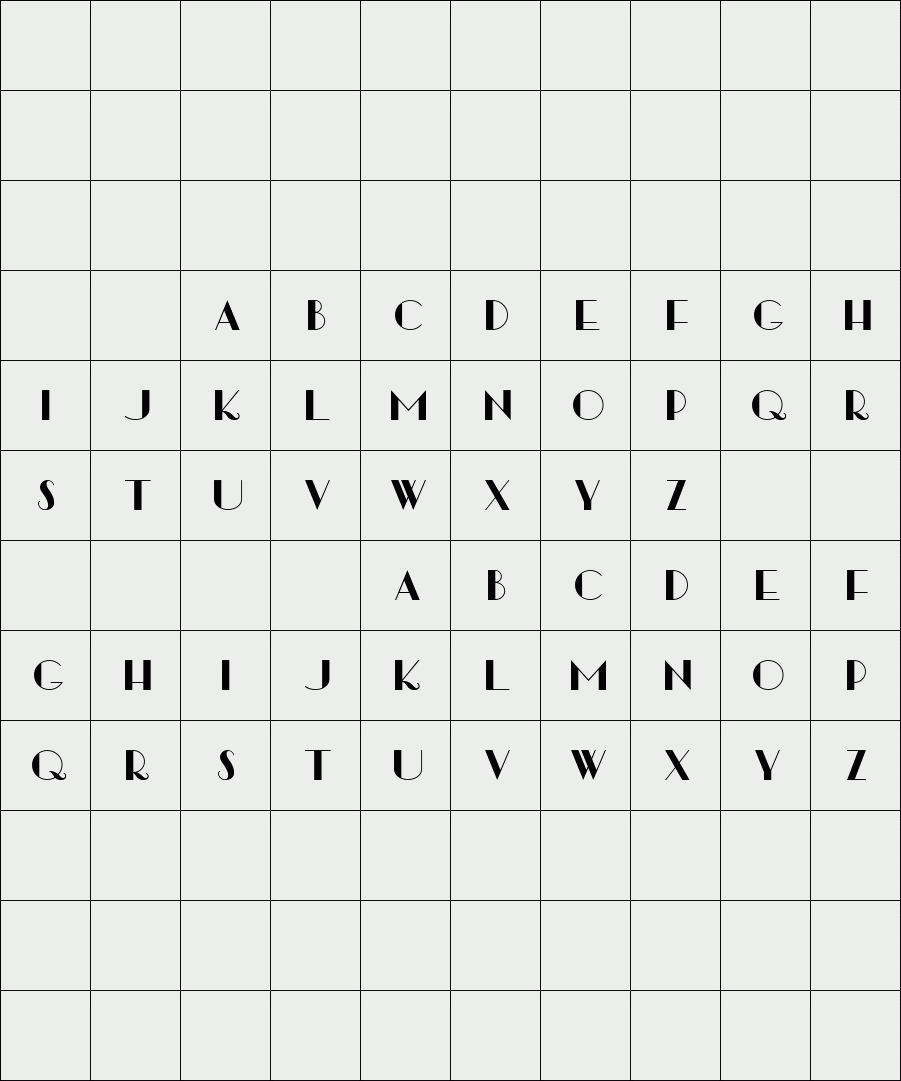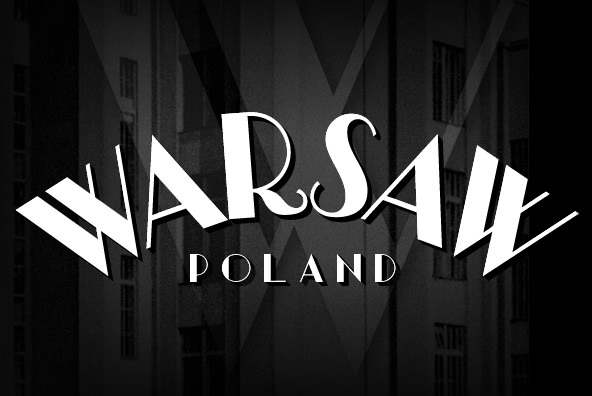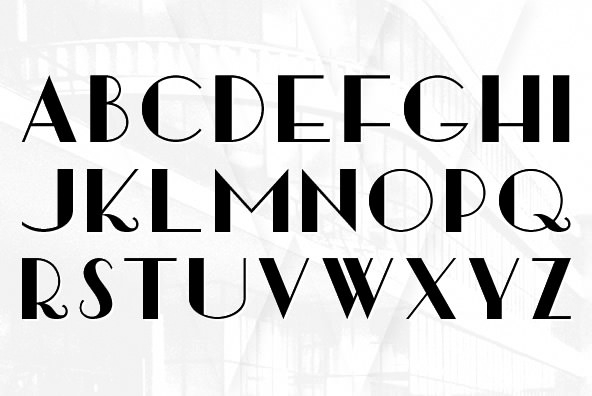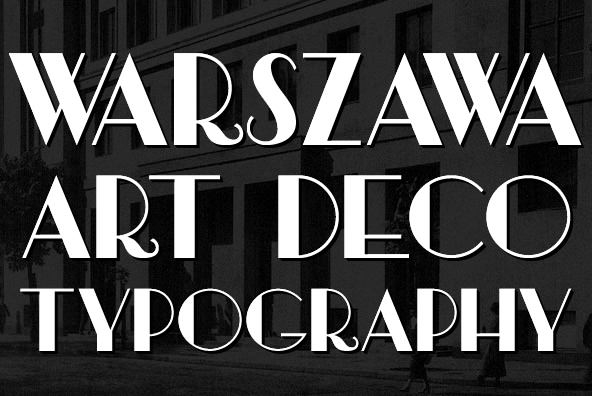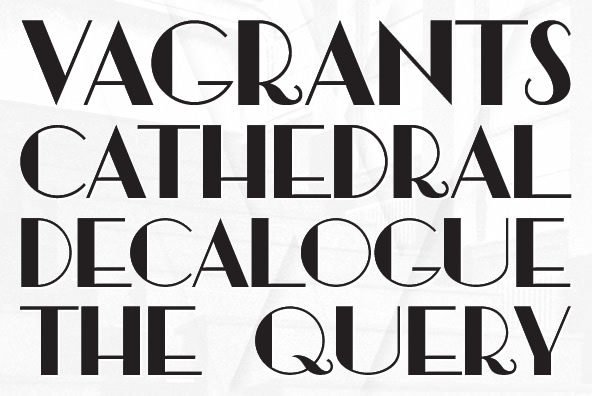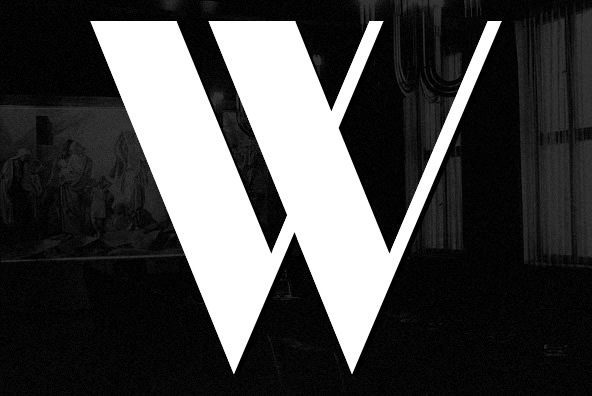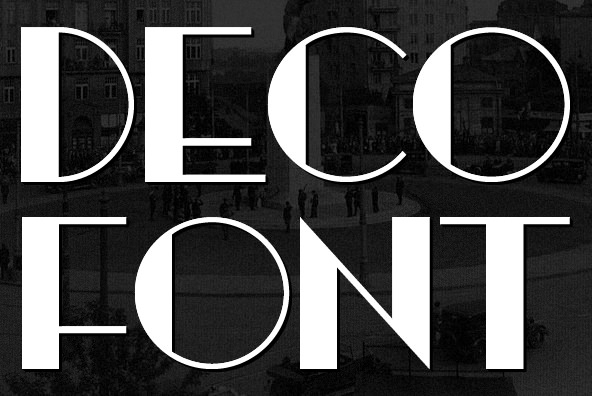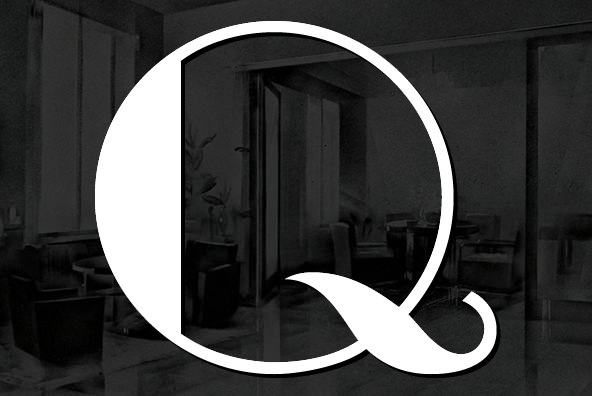
Warszawa Deco
Warszawa Deco is a typeface based on Polish Art Deco and modernism of the Interwar period and is part of a series inspired by the aesthetics of Poland, circa 1908 to 1939.